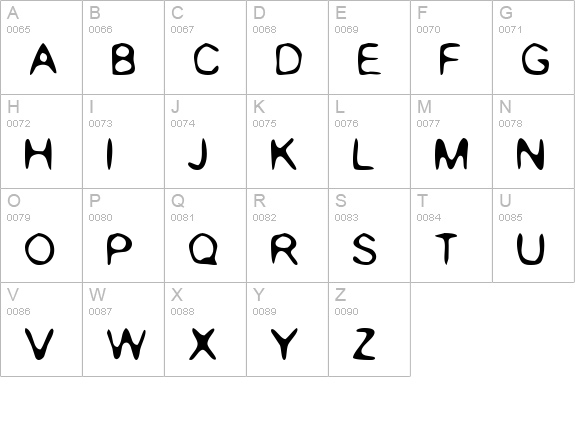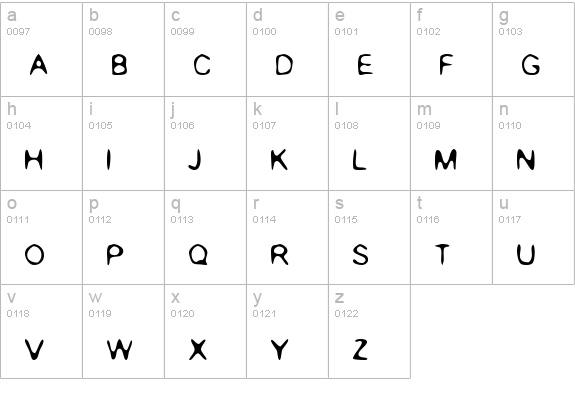
Rounded Genius Font Details
Introducing Rounded Genius font, a modern and versatile typeface that combines sophistication with a touch of playfulness. This font features clean lines and rounded edges, making it perfect for a variety of design projects. Whether you're creating a logo, branding materials, or a website, Rounded Genius font will add a stylish and professional look to your work. The best part? Rounded Genius font is available for free download at FontsMarket.com. That's right, you can easily access this high-quality font without any cost, allowing you to elevate your designs without breaking the bank. Don't miss out on this opportunity to add a touch of creativity to your projects with the freely available Rounded Genius font. Download it today and start creating with style!